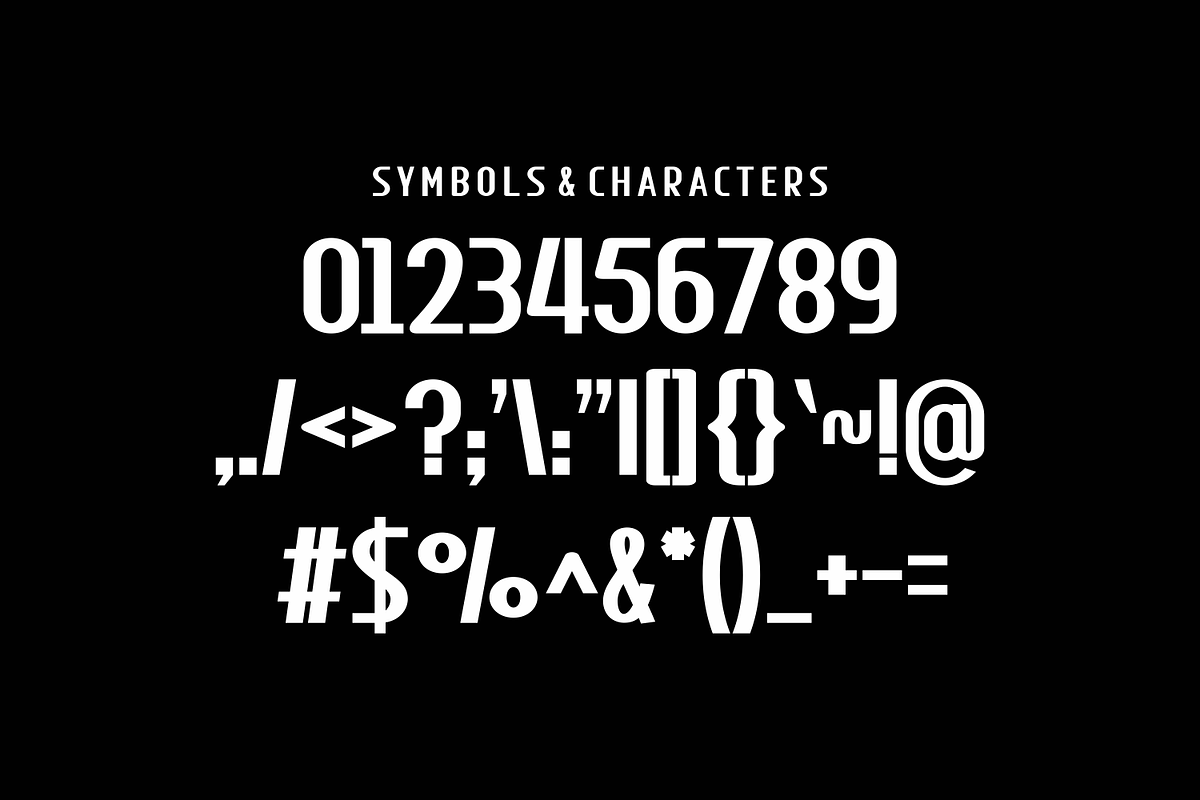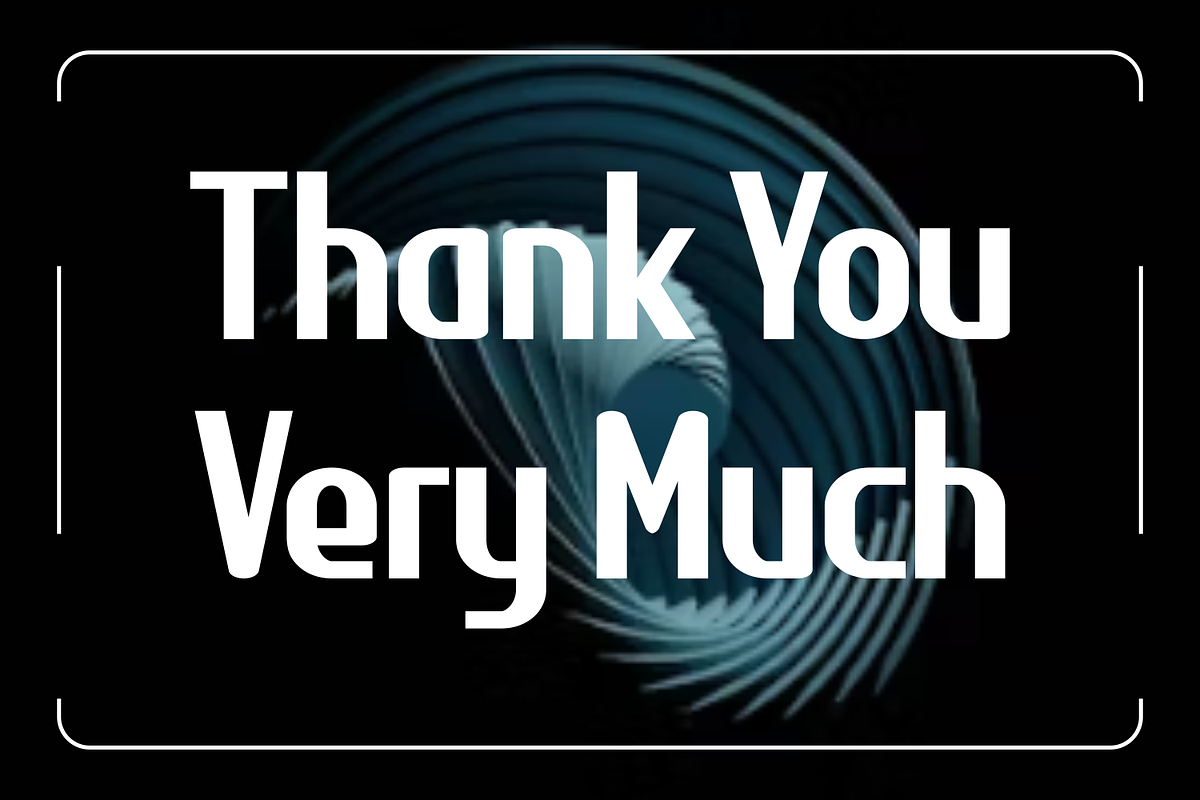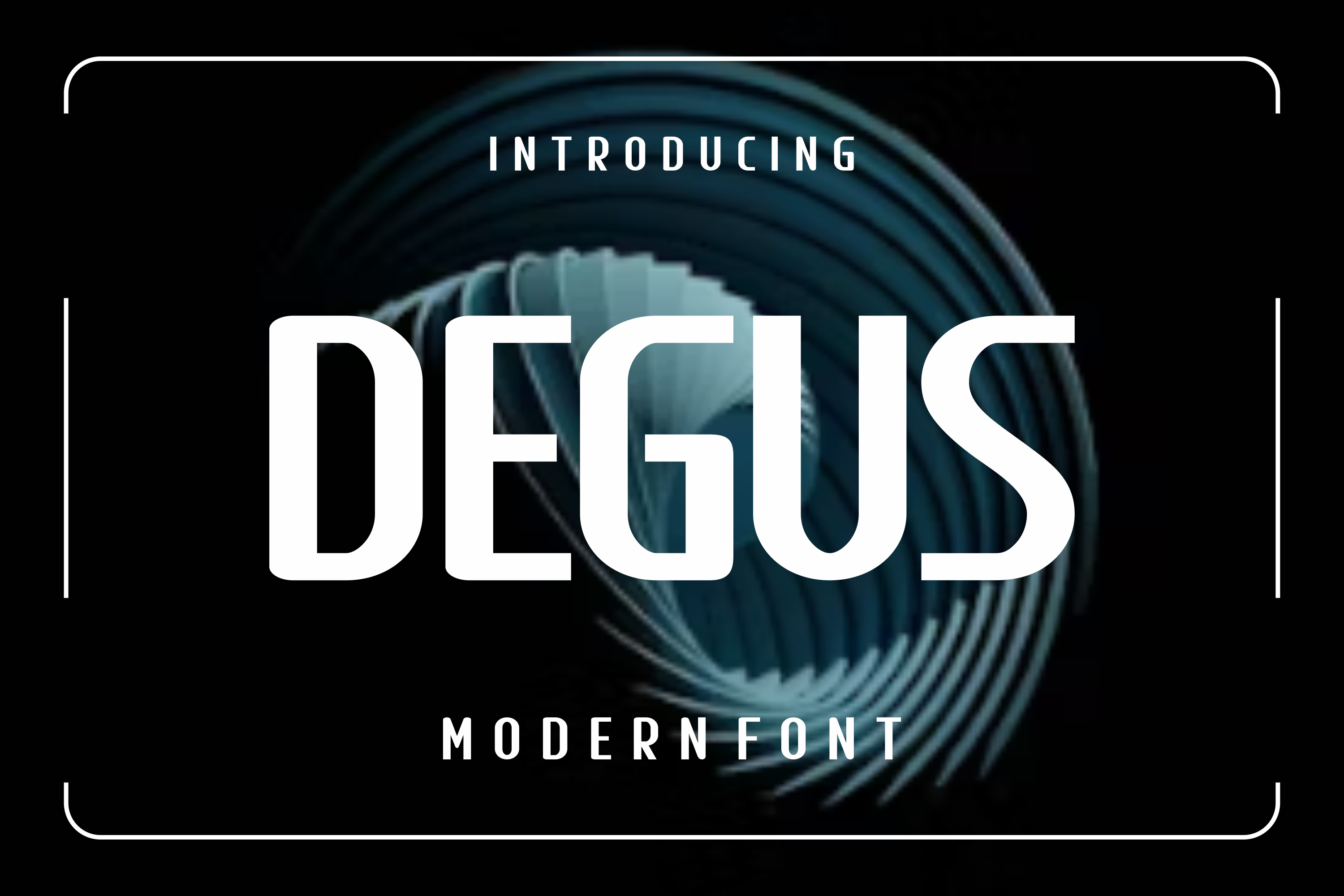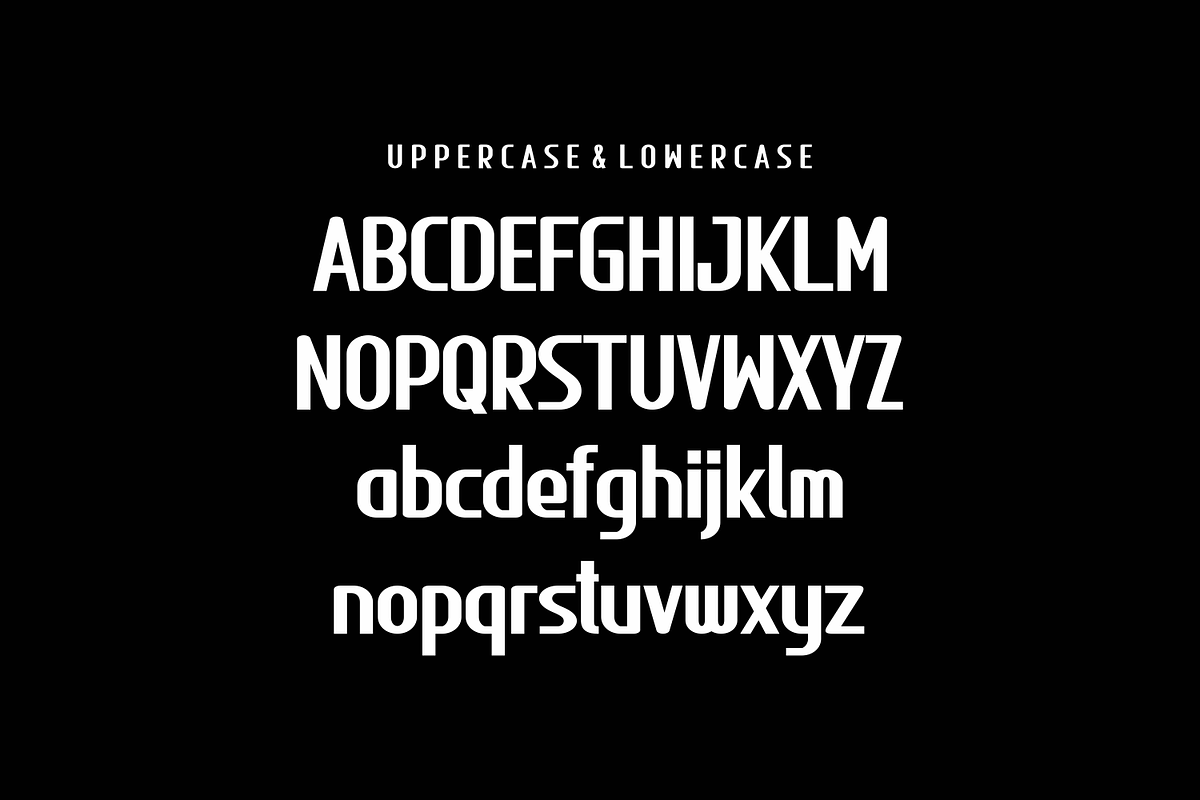
Degus - Modern Sans Serif Font
Degus - Modern Sans Serif Font Perfectly suited on print/screen. it’s perfect for Branding, name card, poster, logo, magazine, cover, banner, t-shirt and headers, or even large-scale artwork.